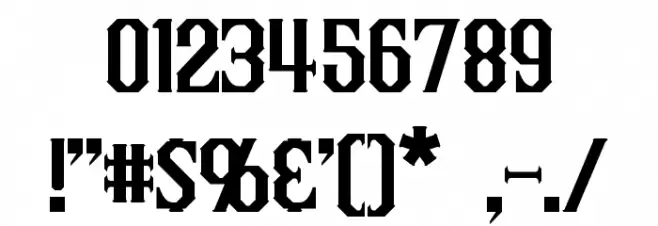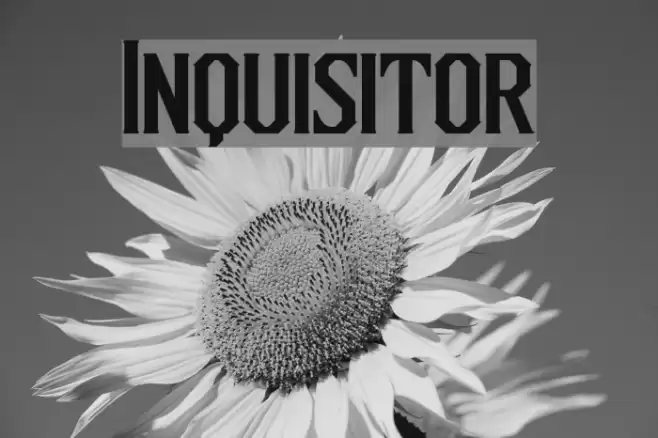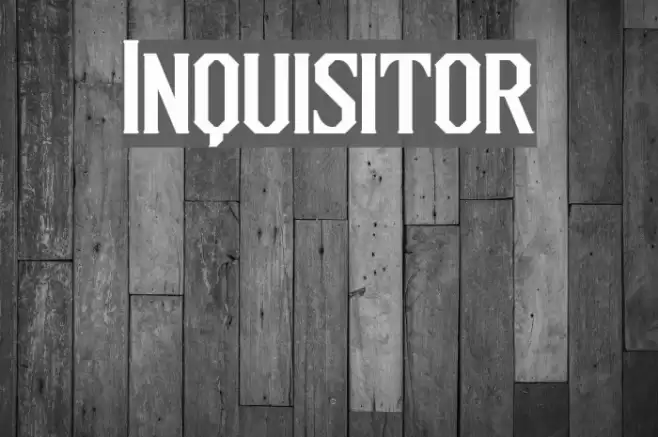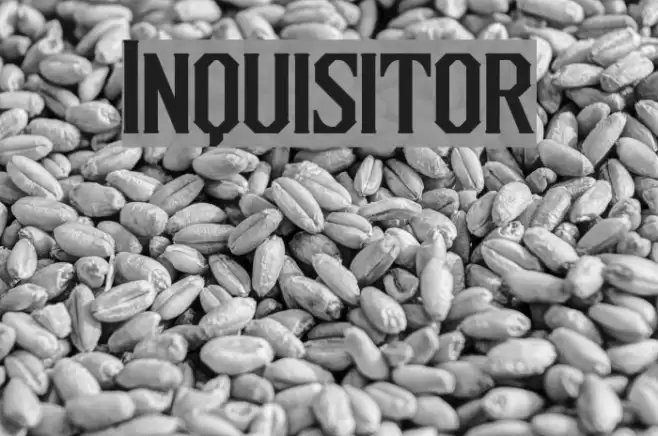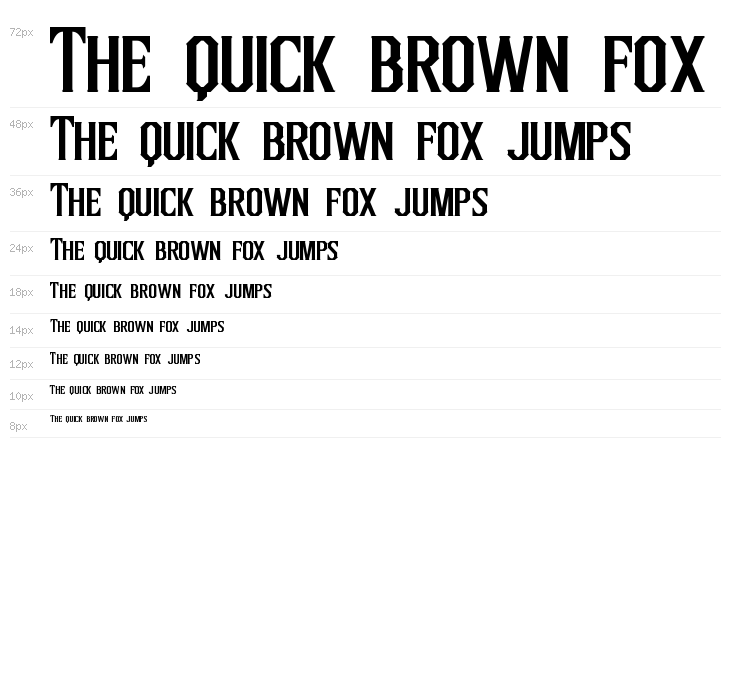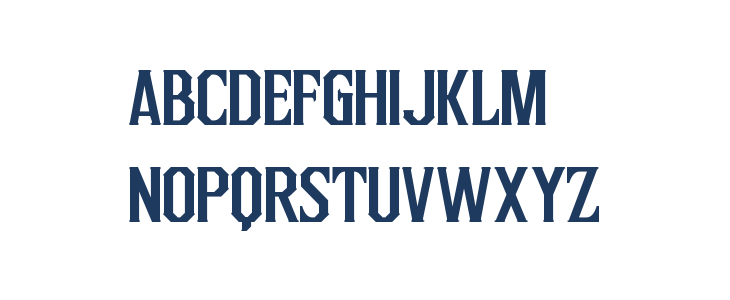
Inquisitor Font
Inquisitor Description
This font features a bold and striking design with sharp, angular edges and a strong presence. The uppercase letters are tall and commanding, with a geometric structure that gives them a modern and authoritative feel. The lowercase letters maintain the same angular style, providing consistency throughout the typeface. Numbers are equally bold, ensuring they stand out in any context. The special characters are designed to match the overall aesthetic, making this font suitable for impactful and attention-grabbing designs. Its unique style is reminiscent of gothic or medieval influences, yet it retains a contemporary edge.
| Overall Style | Modern Gothic |
| Proposed Projects | Ideal for branding, posters, album covers, and any project requiring a bold, impactful typeface. |